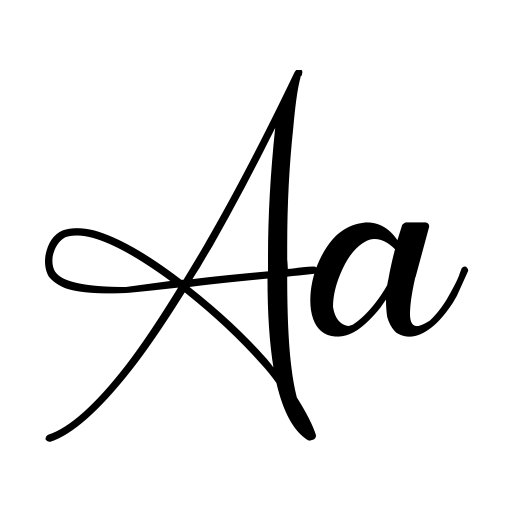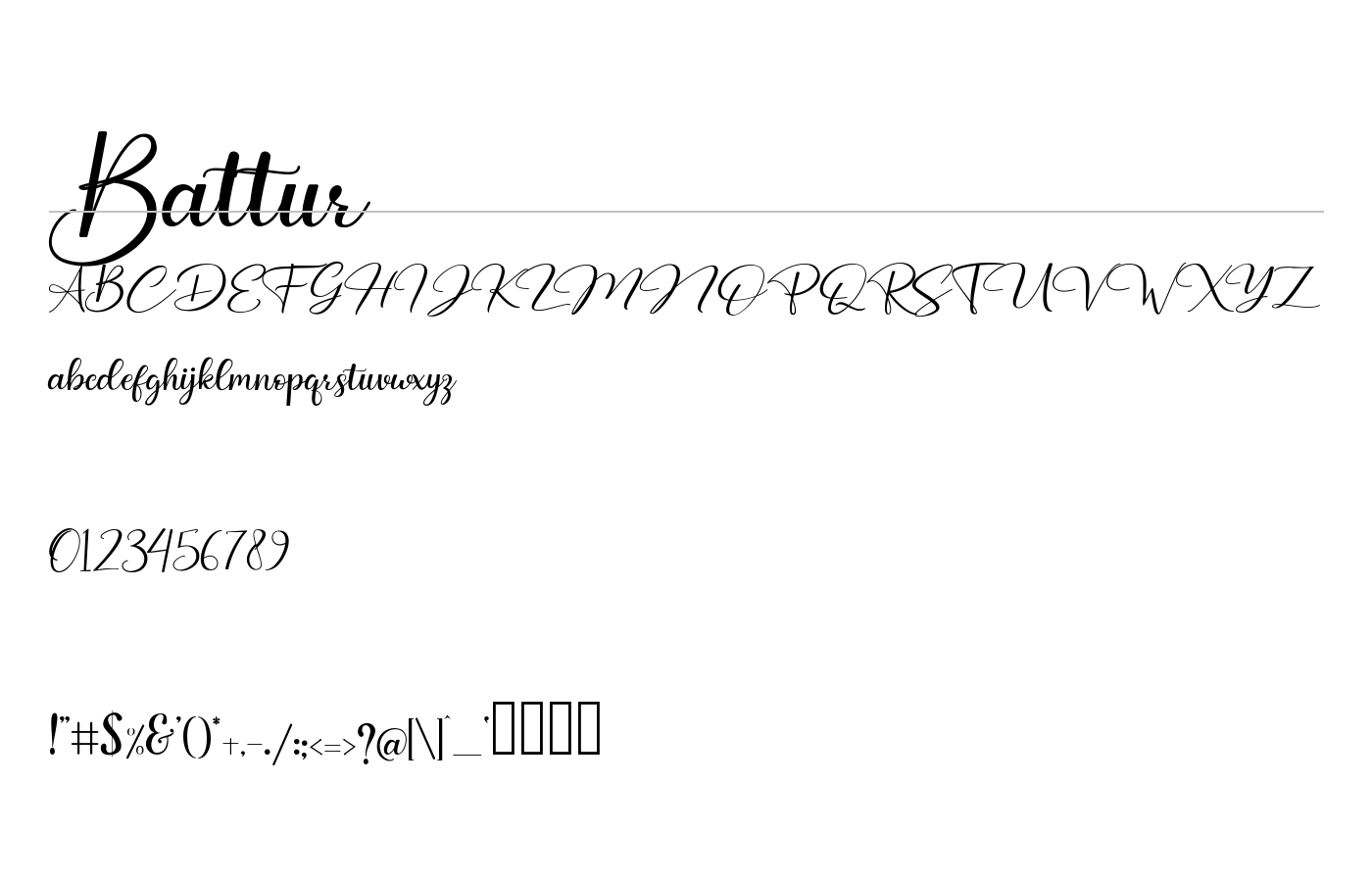
Battur is an elegant script font with smooth, flowing strokes and a delicate, hand-lettered feel. Its thin lines and graceful curves make it perfect for stylish branding, wedding invitations, and feminine designs where a refined, sophisticated touch is desired. This font works well in headlines and decorative text, adding a charming and artistic flair.
Battur Font
About Battur Font
| Font family | Battur Font |
| Designer | MUHAMMAD YONI |